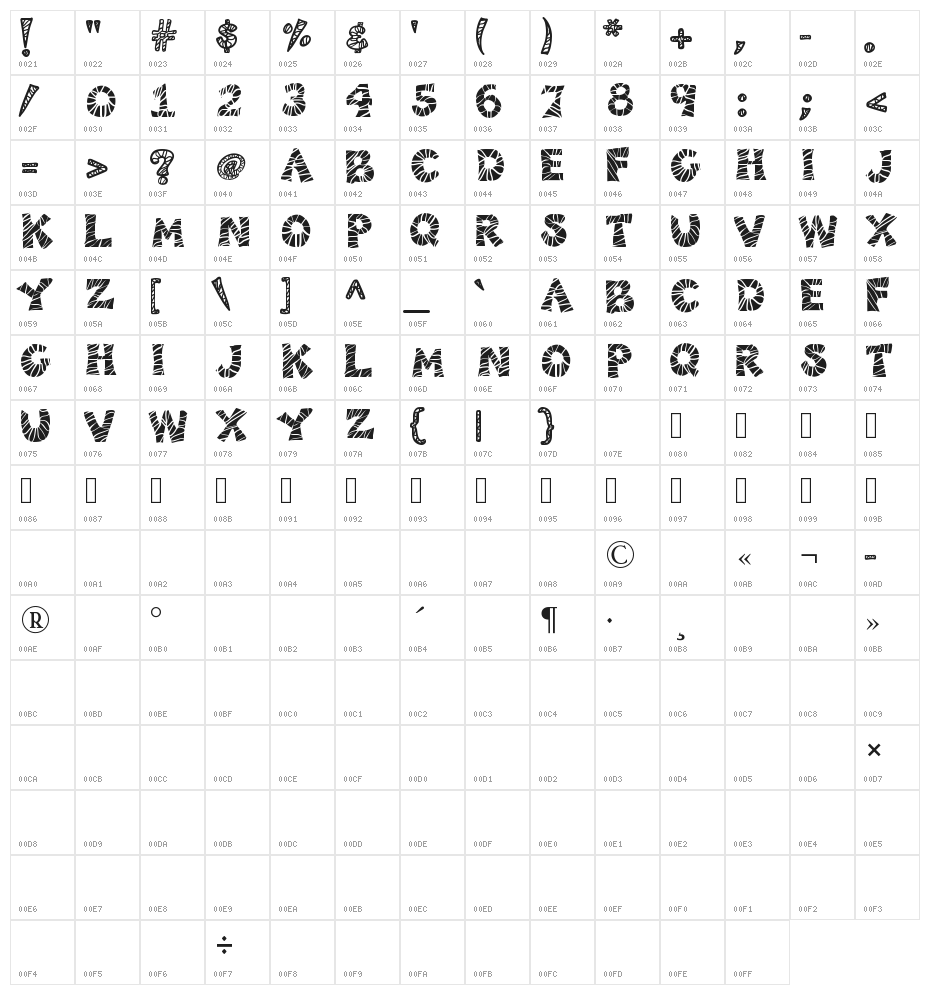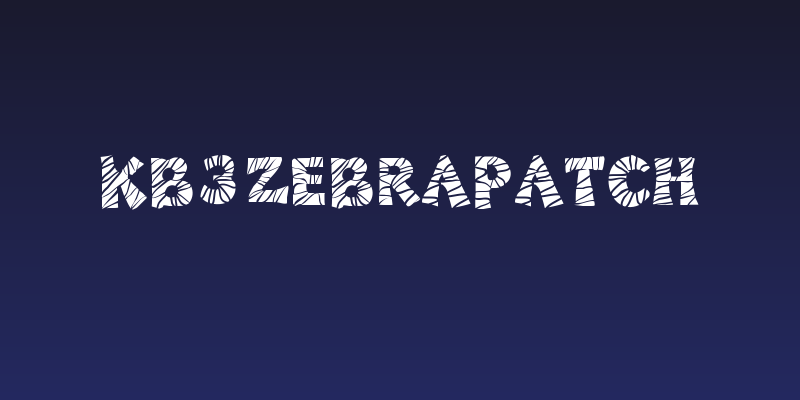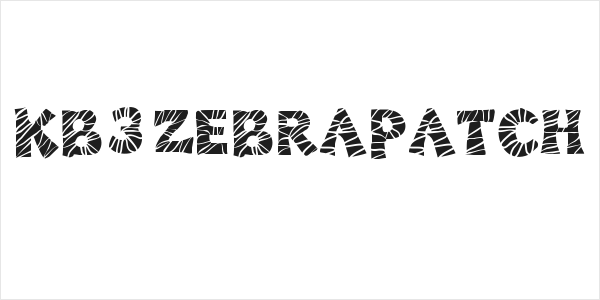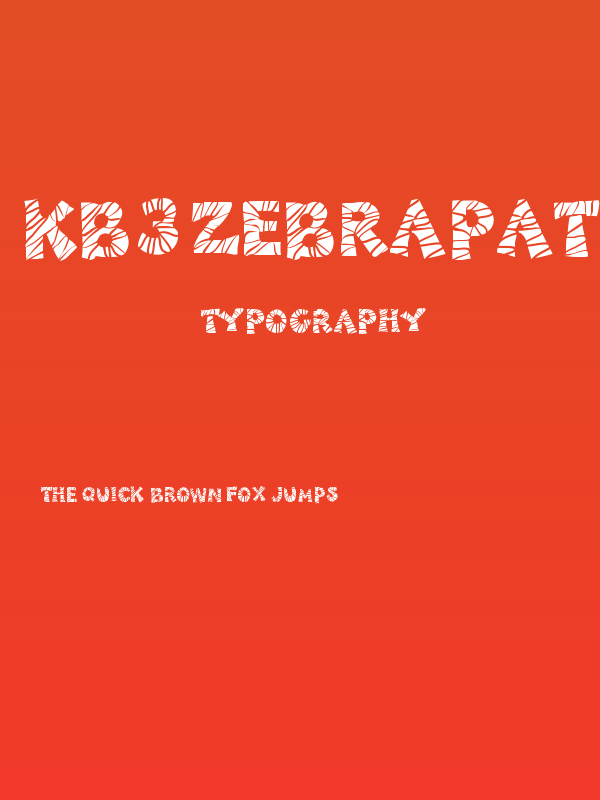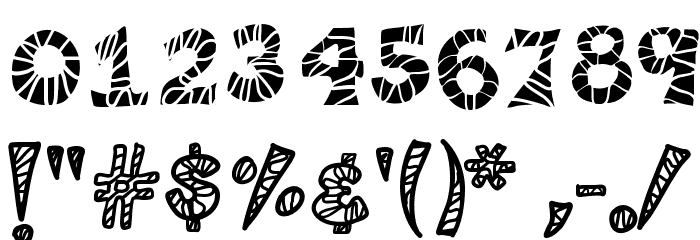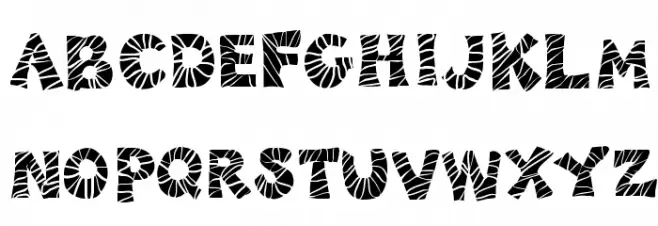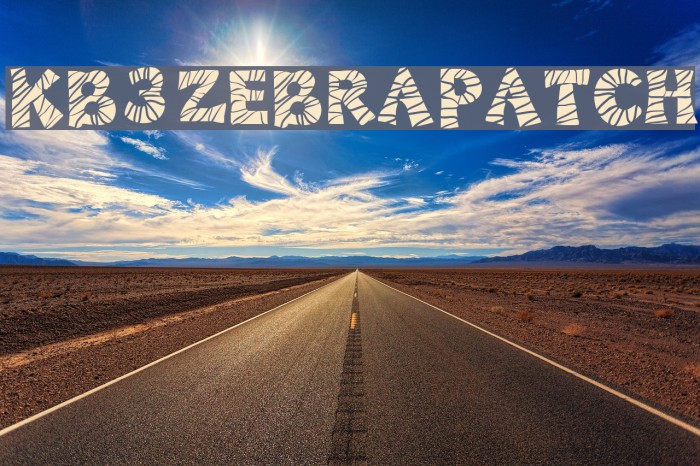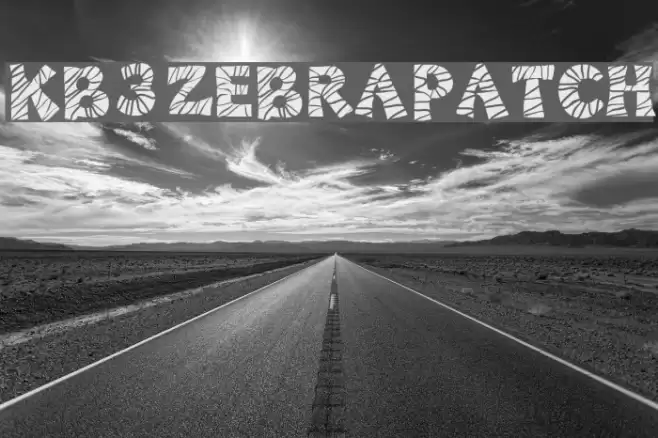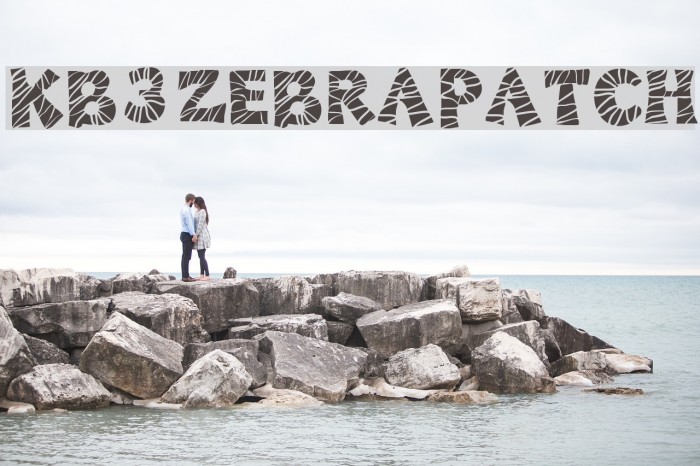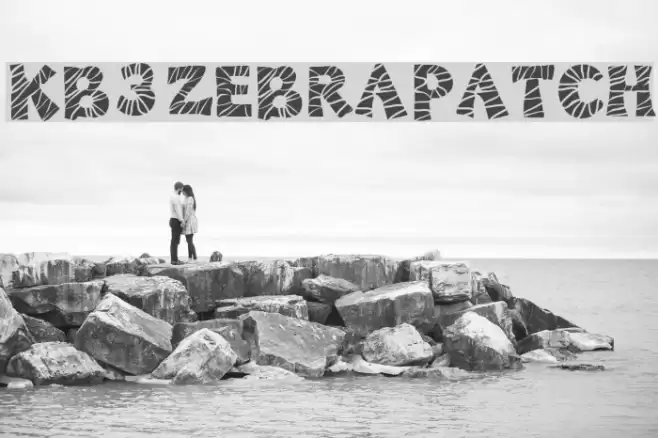
KB3ZebraPatch Font
KB3ZebraPatch Description
This font features a bold and striking design with a zebra-like pattern filling each character. The letters and numbers are composed of thick, black stripes that create a dynamic and eye-catching effect. The playful yet structured appearance makes it suitable for creative and adventurous projects. The uppercase and lowercase letters maintain a consistent style, ensuring uniformity across different text applications. The special characters are equally distinctive, adding to the font's versatility. This font is ideal for projects that require a bold statement or a unique visual impact.
| Proposed Projects | Ideal for posters, branding, children's books, and any project needing a bold, playful touch. |